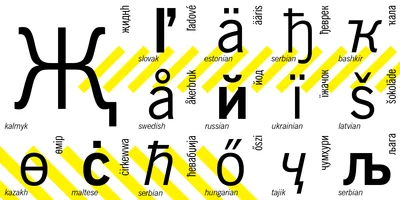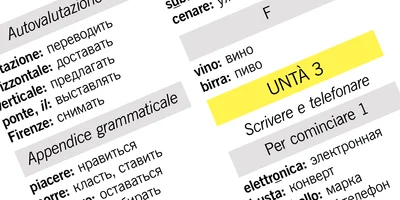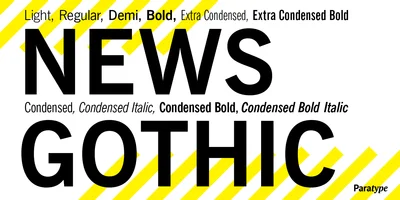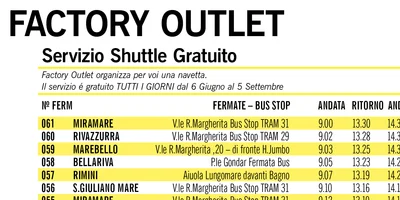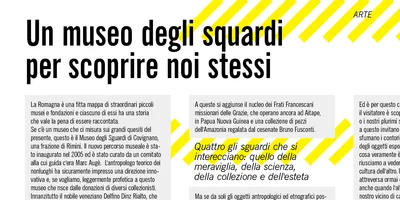
News Gothic vs Syntax
News Gothic and Syntax are both sans-serif typefaces sharing a humanist foundation. Where News Gothic leans editorial, condensed, Syntax brings elegant, script. Compare which suits your Editorial project.
News Gothic
HumanistCondensed
Syntax
HumanistScript
Elegant
News Gothic
Syntax
Feature News Gothic Syntax
Classification sans-serif sans-serif
Weights Multiple Multiple
Italics Yes Yes
Language Support latin, latin-extended latin, latin-extended
Recommended: News Gothic
• editorial, condensed design character
• Suited for News and Magazines
Consider: Syntax
• elegant, script design character
• Suited for Corporate and Books